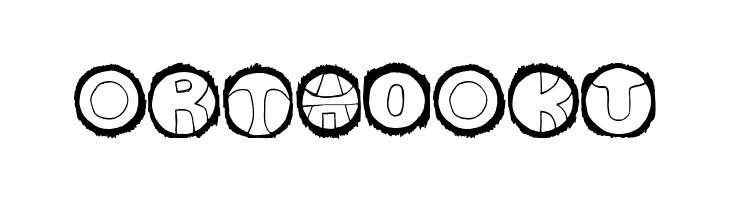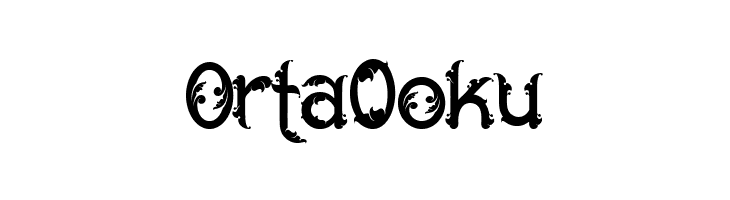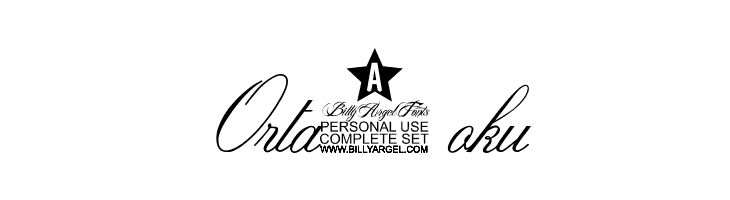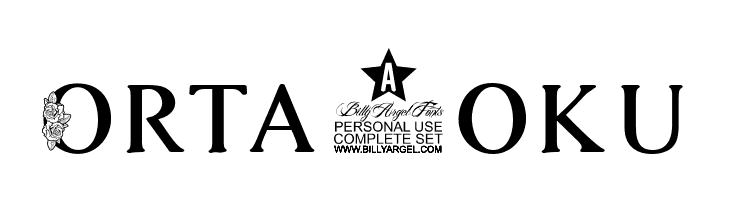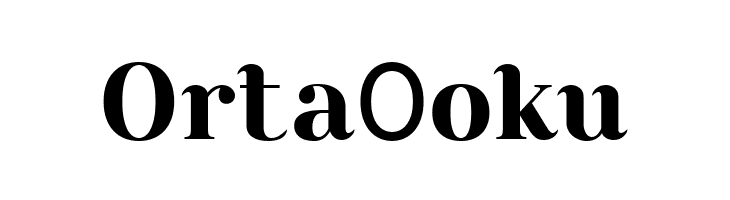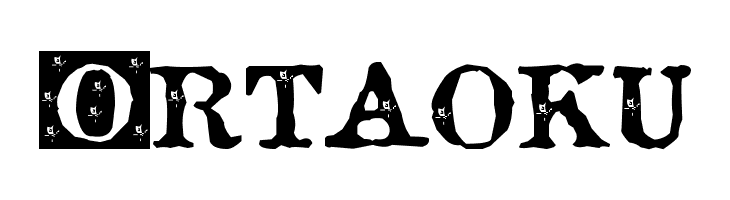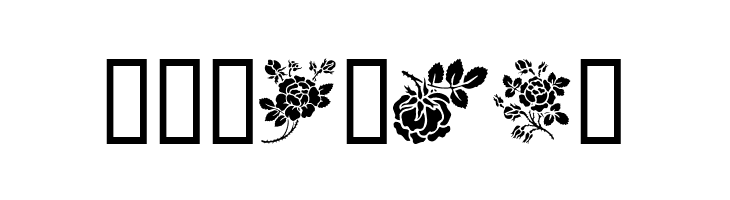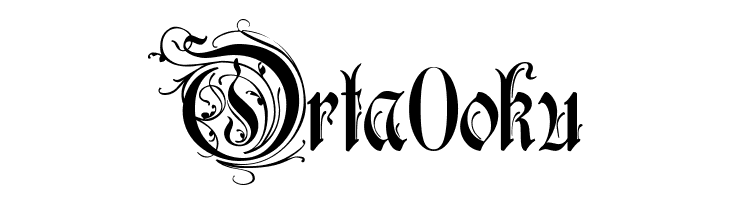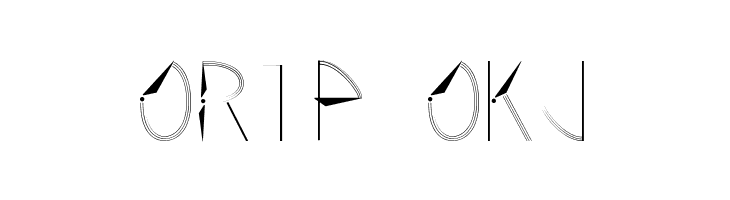
A playful, hand-drawn font with letters in circular shapes, perfect for creative projects.
Ornamental floral dingbat font with detailed rose motifs.
A decorative serif font with floral embellishments on select uppercase letters.
An elegant, flowing script font with a classic, sophisticated style.
A bold and elegant serif font with high contrast and classic styling.
An ornate, decorative font with intricate flourishes and a modern script style.
An ornate, decorative blackletter-inspired font with intricate flourishes.
A modern, geometric font with rotor-like elements and a futuristic aesthetic.